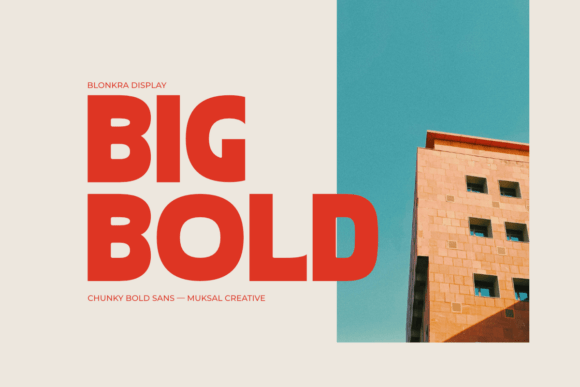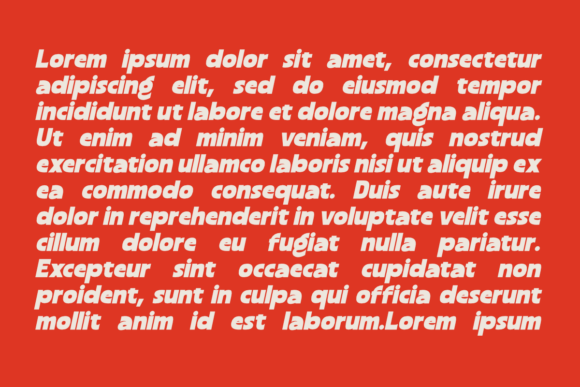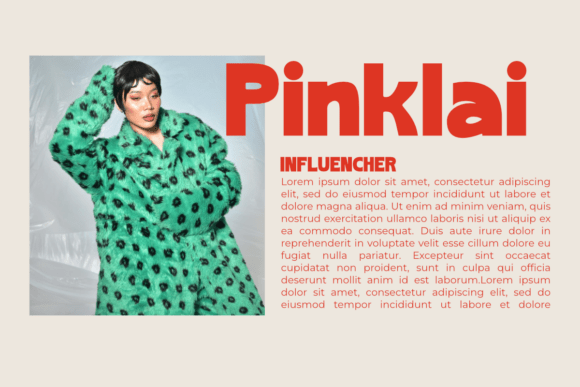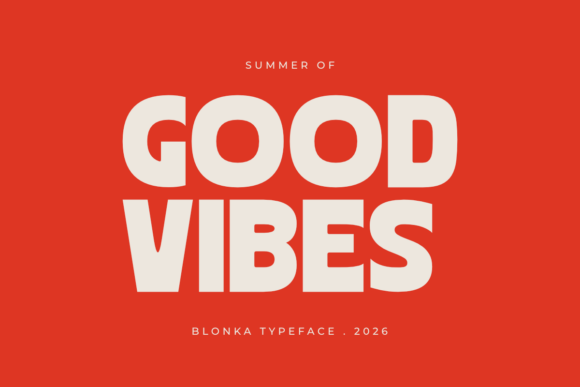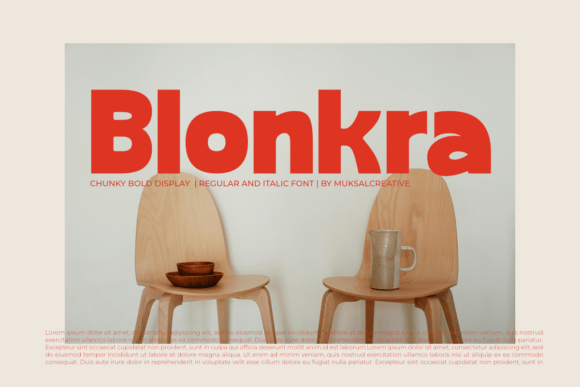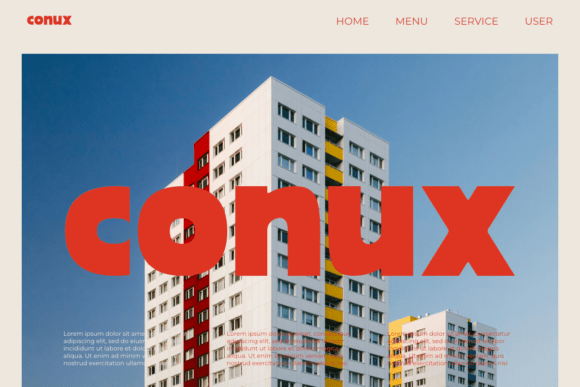
Get Ready to Unleash the Retro Vibes: Introducing Blonkra Font
As a designer, have you ever stumbled upon an old vintage poster or a retro-themed advertisement that instantly sparks your creativity? You can’t help but feel the nostalgia and energy that comes with it. The way the bold typography pops out, drawing your attention and making you want to learn more. That’s exactly what the Blonkra Font is all about – capturing that same retro vibe and bringing it to life in modern design.
Blonkra Font is a chunky, bold display sans-serif typeface designed to deliver a warm, energetic, and retro look that’s perfect for food branding, poster design, logo typography, and digital headlines. With its thick uniform strokes, rounded terminals, and bouncy organic curves, this typeface is a valuable addition to any designer’s toolkit, allowing them to create strong, eye-catching brand identities that stand out from the crowd.
Blonkra Font Key Features
- Font Family: Blonkra is a unique, hand-drawn sans-serif font family.
- Character Count: Blonkra includes 430 characters, including uppercase and lowercase letters, numerals, punctuation, and special characters.
- Unique Characteristics: Blonkra features a distinctive, playful feel with irregular shapes and rounded edges, making it perfect for creative and whimsical designs.
Blonkra Font Review
Overall, I was excited to dive into the Blonkra Font, but my experience was a mixed bag. Here are my thoughts:
- The Blonkra Font has a unique and quirky feel to it, making it perfect for projects that need a bit of personality.
- The font is well-suited for titles and headings, as it’s bold and eye-catching.
- The Blonkra Font includes a wide range of characters, including accents and symbols.
- The font can be difficult to read in certain contexts, particularly at smaller font sizes.
- The irregular letterforms can make it challenging to use in long blocks of text.
- The font’s quirkiness may not be suitable for every project or audience.
Overall, I think the Blonkra Font is a great choice for specific projects where its unique personality can shine. However, it may not be the best fit for every design need.
Getting the Most Out of Blonkra Font
To get the most out of Blonkra font, try the following tips:
- Pair Blonkra font with other fonts to create a unique and eye-catching design.
- Use Blonkra font to add a touch of elegance and sophistication to your designs.
Blonkra font is commonly used for:
- Editorial and publishing design.